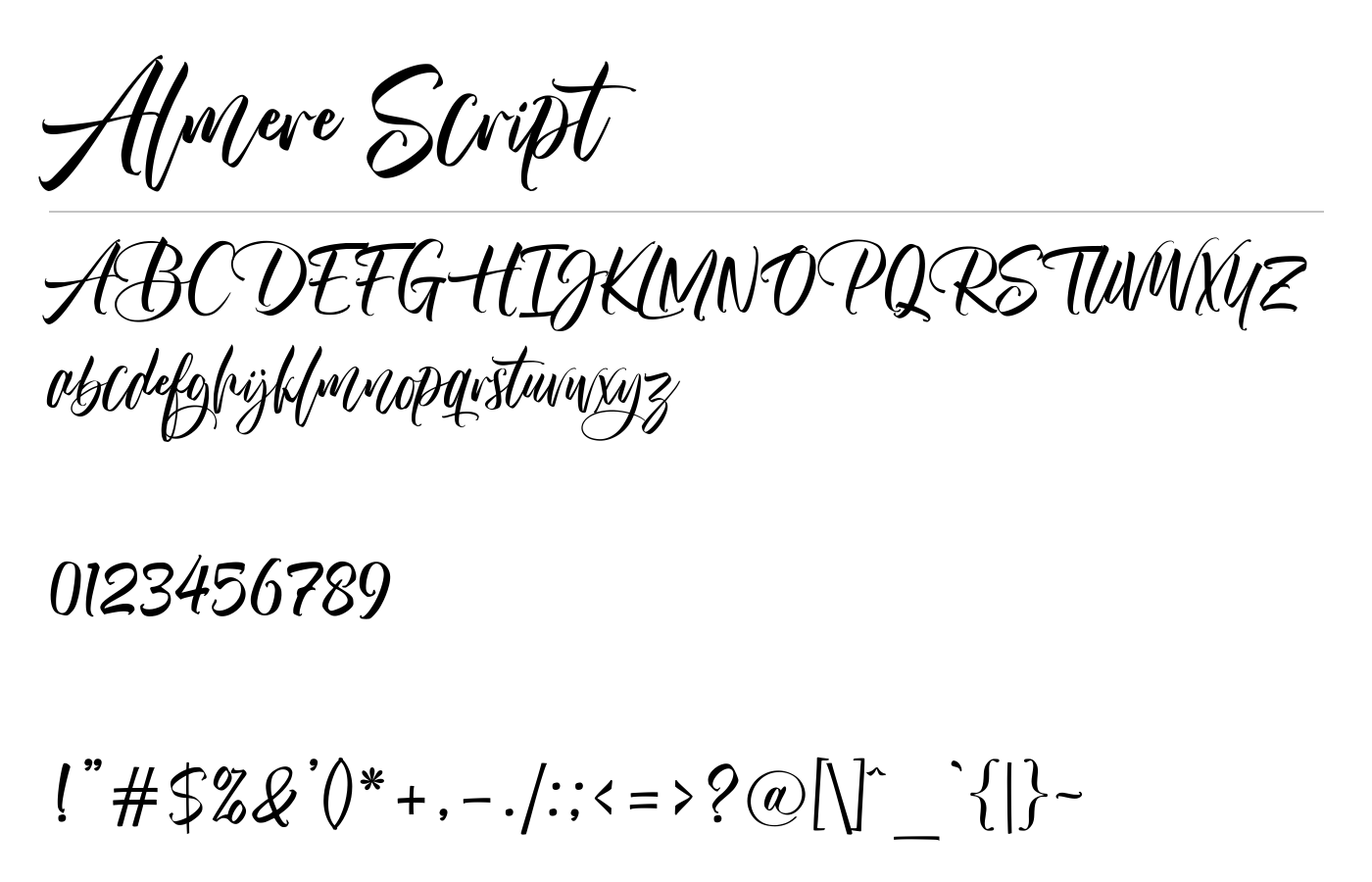
Almere Script is a lively, elegant script font featuring smooth, flowing strokes and a moderate contrast between thick and thin lines. Its handwritten style combines a casual yet refined feel, making it perfect for creative branding, invitations, and stylish headlines. This font’s graceful curves and unique letterforms bring a personal, artistic touch to any design seeking warmth and sophistication.
Almere Script Font
About Almere Script Font
| Font family | Almere Script Font |
| Designer | Joelmaker |